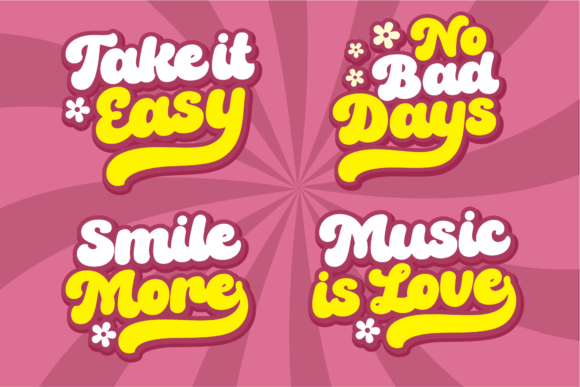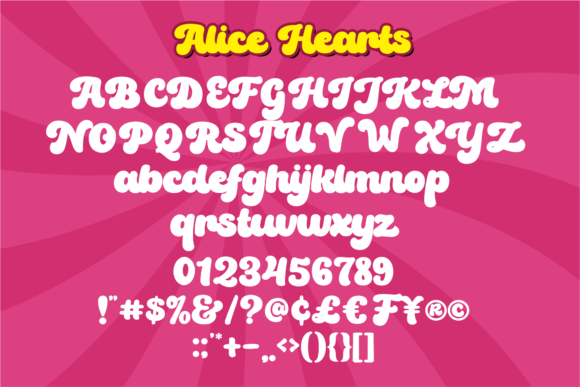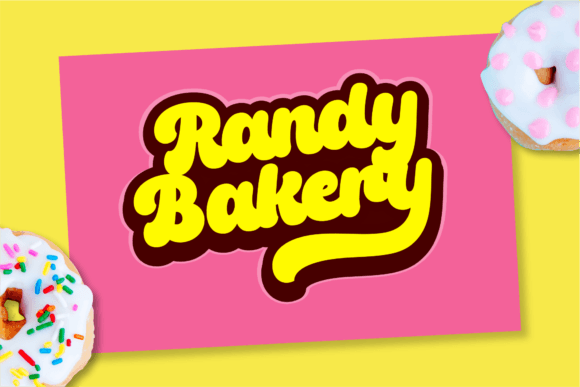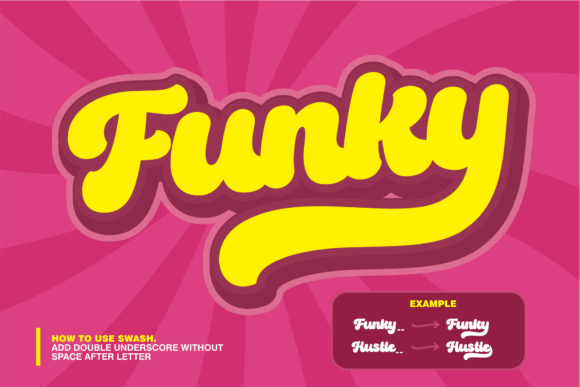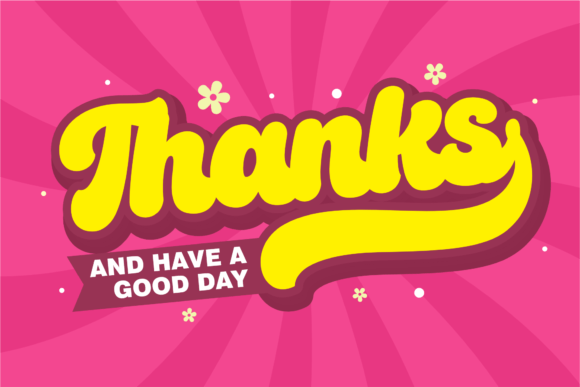
Alice Heart Font: The Groovy Bold Font to Elevate Your Designs
Are you a designer or crafter looking for a unique and stylish font to add a retro touch to your creative projects? Look no further than the Alice Heart font! This bold and groovy font is perfect for making a statement and bringing your design ideas to the next level.
What is Alice Heart Font?
Alice Heart is a masterfully designed display font that exudes a fun and playful vibe. Its bold and chunky letters are perfect for creating eye-catching headlines, titles, and slogans that demand attention. With its retro aesthetic, this font is ideal for designers and crafters who want to add a touch of nostalgia and whimsy to their work.
Key Features of Alice Heart Font
- Groovy and bold design: The Alice Heart font features a unique and stylish design that is sure to make your designs stand out.
- Retro aesthetic: This font has a distinct retro vibe that is perfect for adding a touch of nostalgia to your designs.
- High versatility: The Alice Heart font can be used for a wide range of design projects, from posters and flyers to logos and branding materials.
- Easy to read: Despite its bold design, the Alice Heart font is easy to read, making it perfect for use in headlines and titles.
How to Use Alice Heart Font in Your Designs
The Alice Heart font is incredibly versatile and can be used in a variety of design projects. Here are a few ideas to get you started:
- Posters and flyers: Use the Alice Heart font to create eye-catching headlines and titles for your posters and flyers.
- Logos and branding: The Alice Heart font is perfect for creating unique and memorable logos and branding materials.
- Social media graphics: Add a touch of personality to your social media graphics with the Alice Heart font.
- Packaging design: Use the Alice Heart font to create eye-catching packaging designs that stand out on store shelves.
Tips for Getting the Most Out of Alice Heart Font
Here are a few tips for getting the most out of the Alice Heart font:
- Use it sparingly: While the Alice Heart font is bold and eye-catching, it can be overwhelming if used too much. Use it sparingly to create emphasis and draw attention to specific elements of your design.
- Pair it with complementary fonts: The Alice Heart font pairs well with a variety of fonts, including sans-serif fonts like Arial and Helvetica.
- Experiment with colors: The Alice Heart font looks great in a variety of colors, so don’t be afraid to experiment and find the perfect hue for your design.
Why Choose Alice Heart Font?
There are many fonts to choose from, but the Alice Heart font stands out for several reasons:
- Unique design: The Alice Heart font features a unique and stylish design that is sure to make your designs stand out.
- High-quality design: The Alice Heart font is masterfully designed to ensure that it looks great in any design project.
| Author | Holydie Studio |
The Alice Heart font is a groovy bold font that is perfect for adding a retro touch to your design projects. With its unique and stylish design, high versatility, and ease of use, this font is sure to become a favorite among designers and crafters. Whether you’re creating posters, logos, or social media graphics, the Alice Heart font is the perfect choice for making a statement and bringing your creative ideas to the highest level.